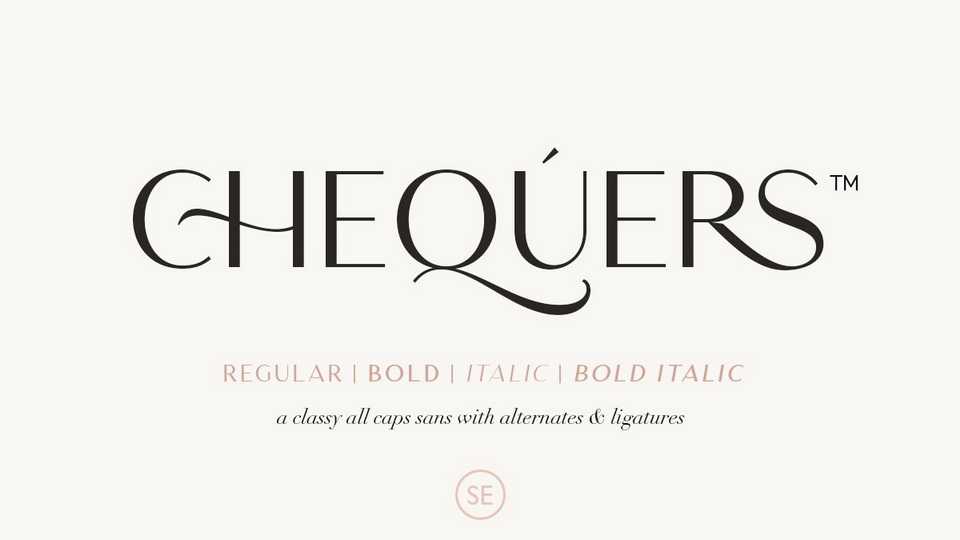
Download Chequers font, a classic elegant sans serif typeface. Chequers contains a bunch of essential ligatures that will make your presentation or logo even more stunning and stand out.